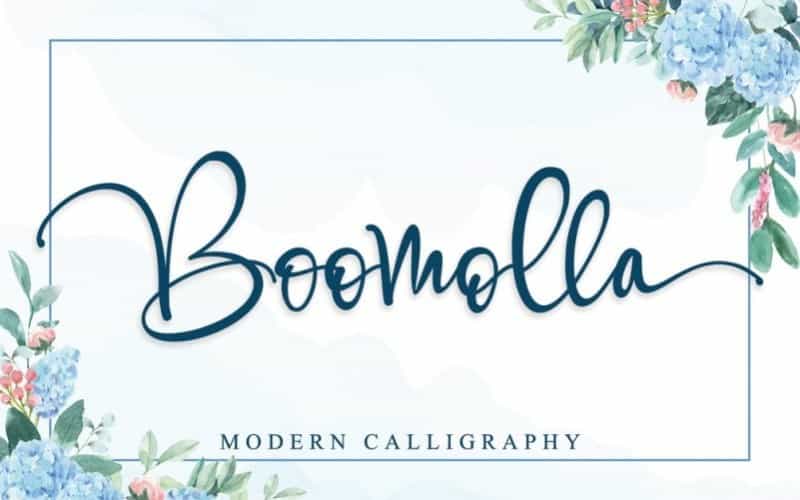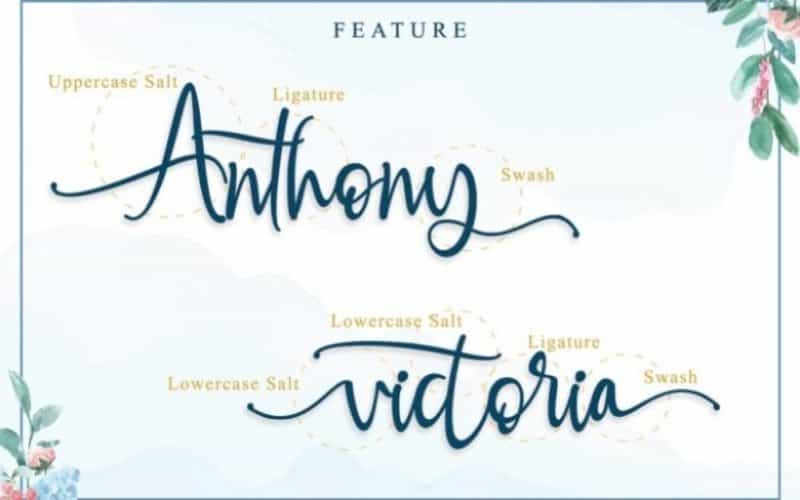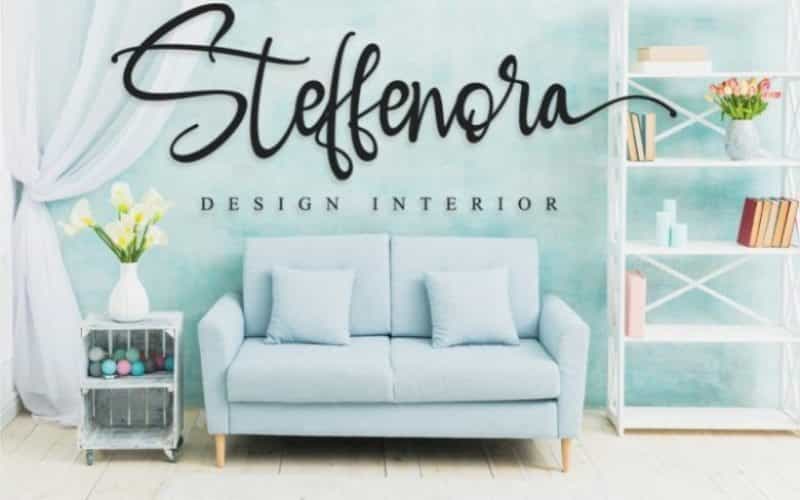
Boomolla is a gorgeous Calligraphy font with a contemporary design. It has these beautiful swashes and ligatures that make this script so versatile. Boomolla will instantly decorate your house.